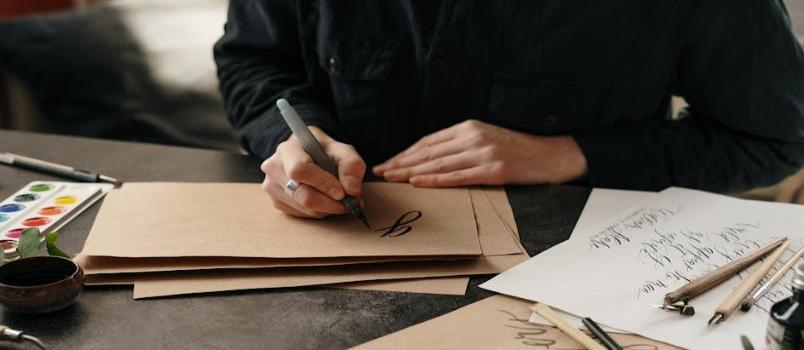
Brush fonts have taken the design world by storm, offering a unique blend of authenticity and creativity. These fonts mimic the natural strokes of hand-painted lettering, making them perfect for projects that need a personal, artistic touch. Whether you’re designing logos, social media graphics, or wedding invitations, brush fonts can elevate your work with their organic, free-flowing style.
Why Choose Brush Fonts?
Unlike traditional typefaces, brush fonts capture the raw energy of hand-drawn art. Here’s why they’re a favorite among designers:
Authenticity – Each stroke looks hand-painted, adding a human touch to digital designs.
Versatility – From bold, grungy styles to delicate script variations, there’s a brush font for every mood.
Trend Appeal – Many brands use brush fonts to create a casual, approachable vibe.
Best Uses for Brush Fonts
Branding & Logos – Many modern brands use brush fonts to stand out with a handmade aesthetic.
Social Media Graphics – Eye-catching quotes and ads feel more personal with brush-style typography.
Packaging & Labels – Artisan products, coffee shops, and beauty brands often use brush fonts for an organic look.
Wedding Stationery – Invitations and place cards gain elegance with flowing script brush fonts.
Brush Fonts
Appo Paint
Art Brush
Levi Brush
Holmes 207
Baloney
Beautiful Ink
Big
Brook 23
Brushed
Brush Stroke
Bumrush
Dark Horse
DJ Gross
Japanese Brush
Olivia
Painted
Plakkaat
Midnight
Wet Paint
Daubmark
Paint Peel
Tumbleweed
Roller
Mike’s Big Day
Painty Paint